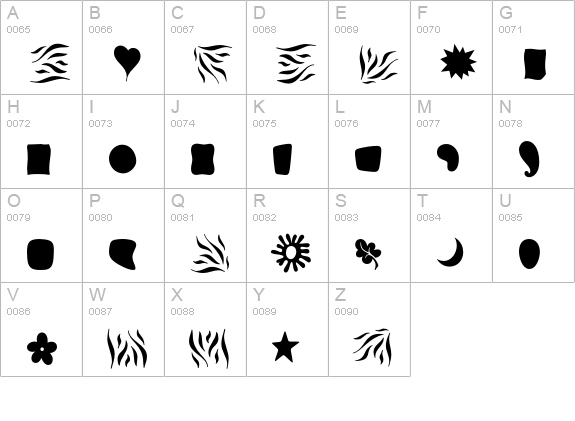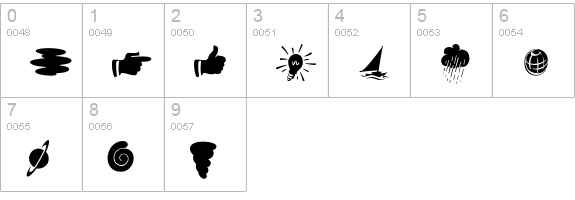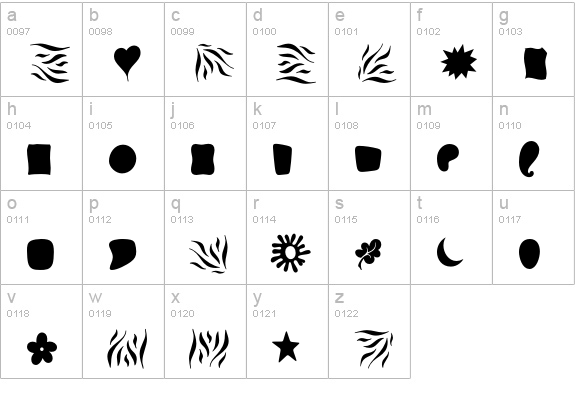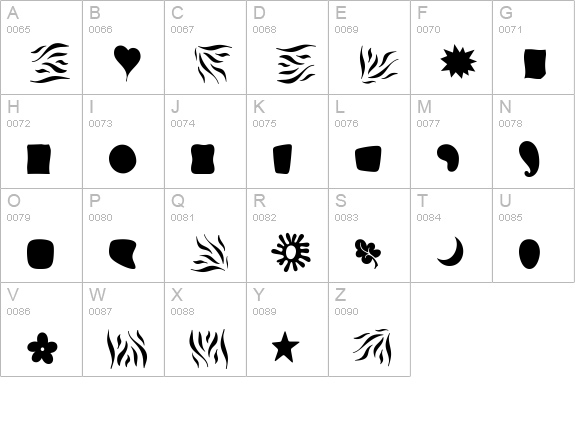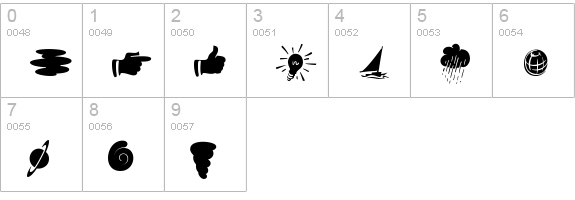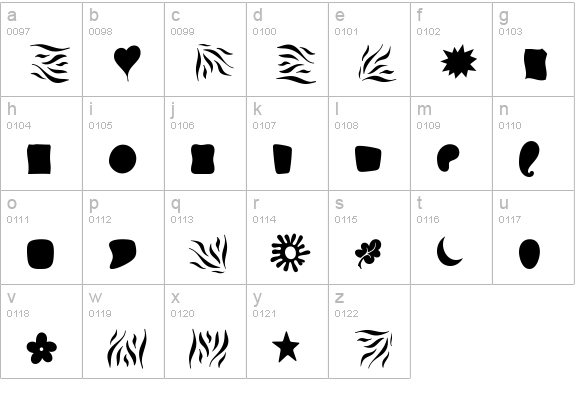
Fontesque-OrnamentsBlack is a stunning decorative font that exudes elegance and sophistication. Its intricate design features ornate details and exquisite flourishes that add a touch of luxury to any project. This font is perfect for creating eye-catching designs, invitations, and branding materials that demand attention and make a lasting impression. The best part is that Fontesque-OrnamentsBlack is available for free download at FontsMarket.com. This means you can easily access this beautiful font and incorporate it into your creative projects without any cost. Don't miss out on the opportunity to enhance your designs with this exquisite typeface that will elevate your work to the next level. Download Fontesque-OrnamentsBlack today and let your creativity shine!